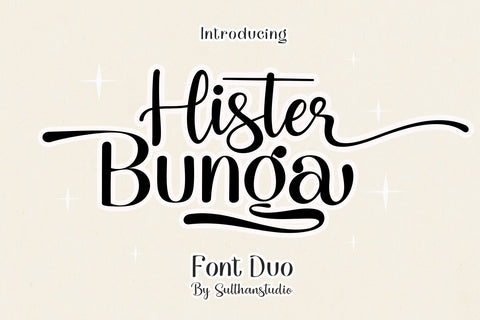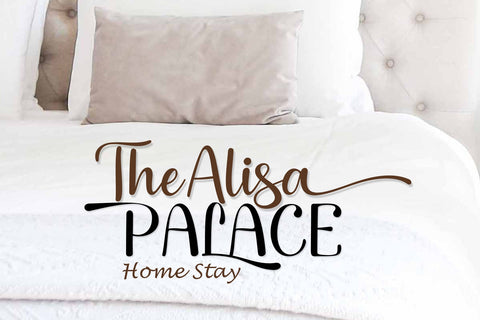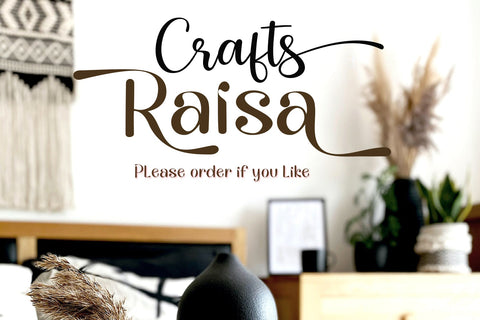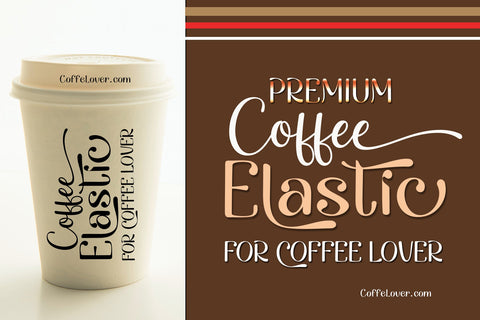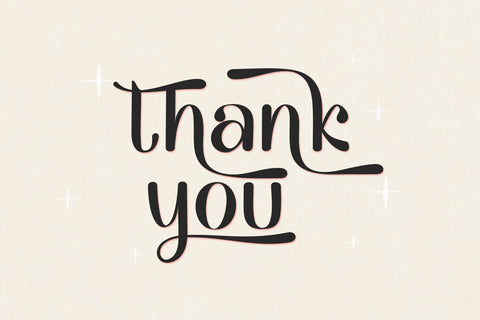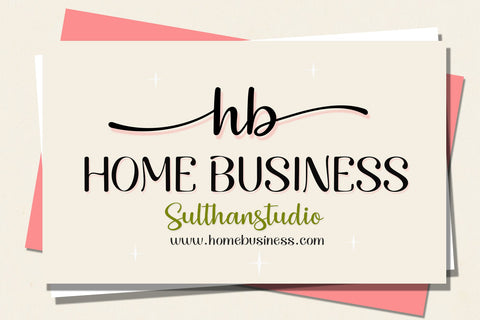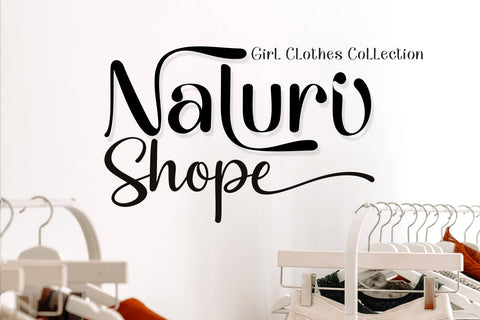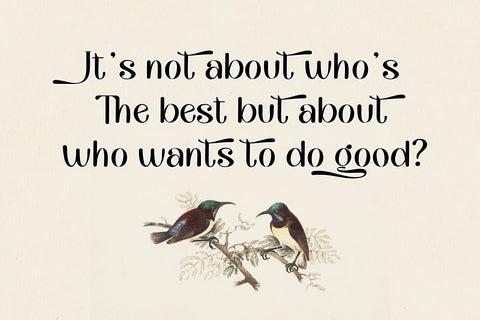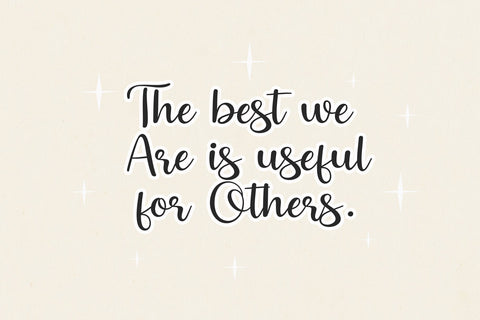
Hister Bunga - Font Duo
Hister Bunga Font Duo Comes with a modern handwriting style and a font with an extraordinary typeface combined with a classy touch making it suitable for any project you are working on that requires two touch script and display fonts.